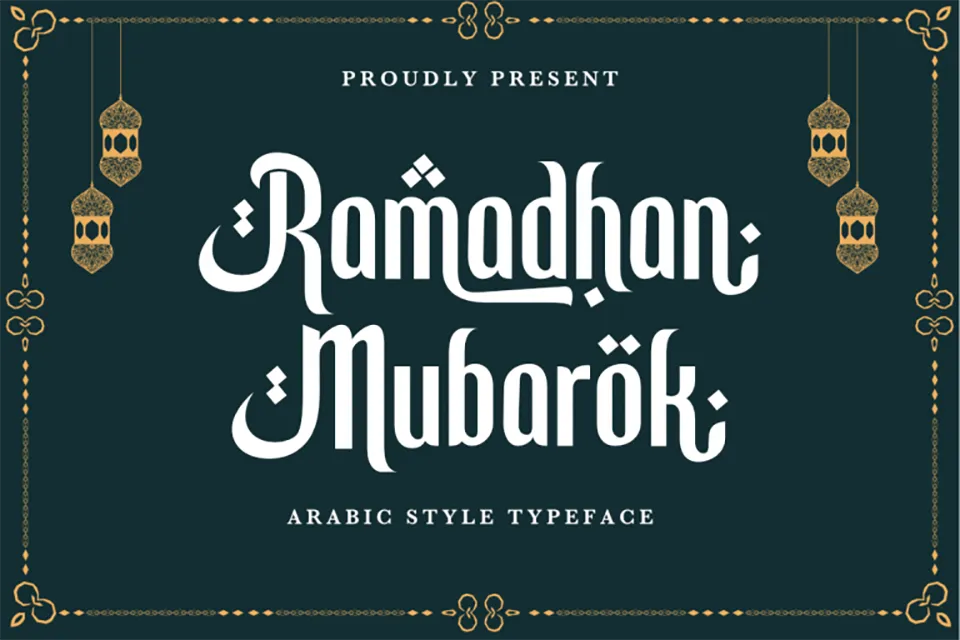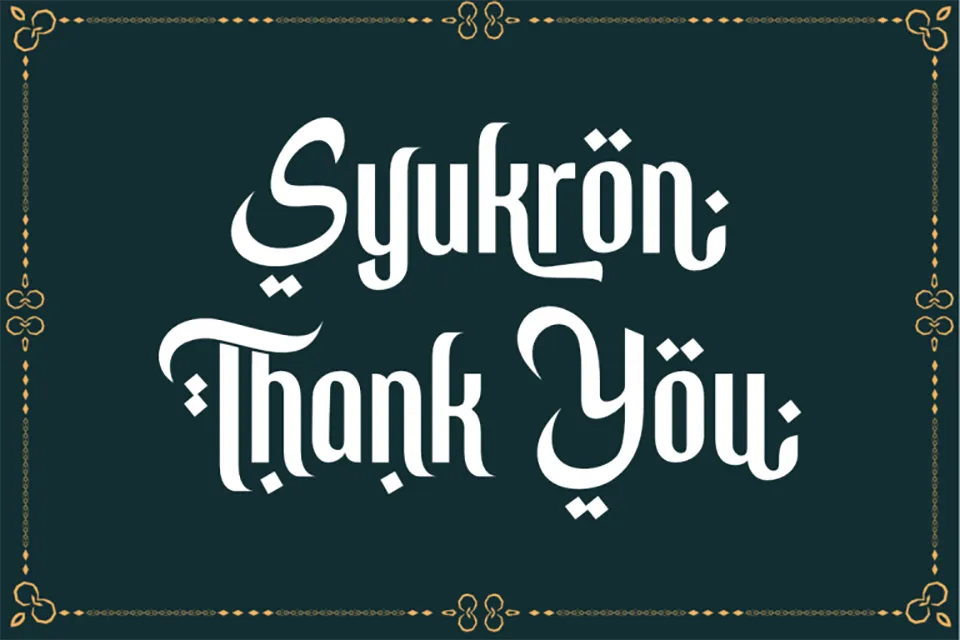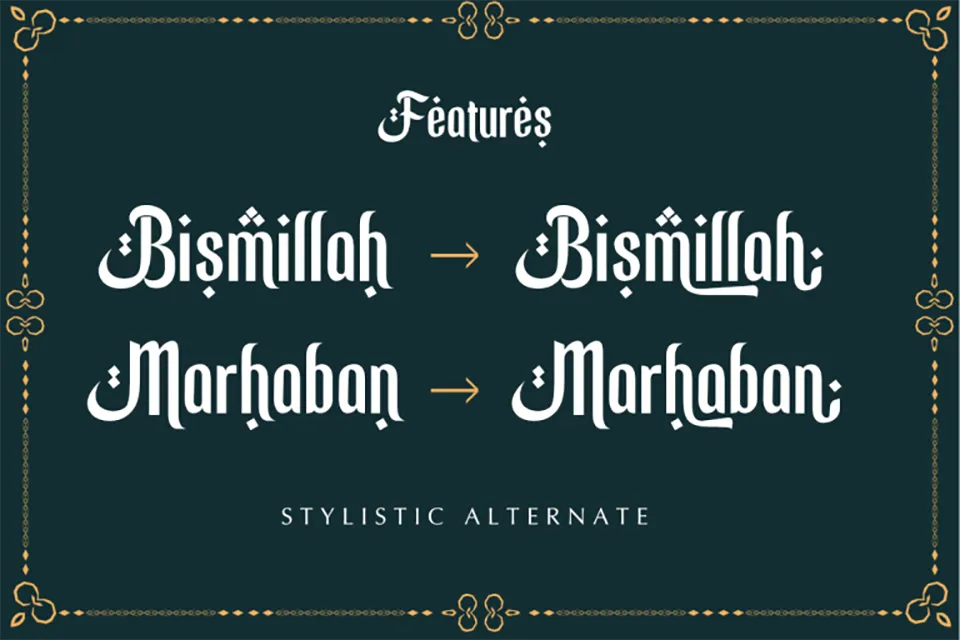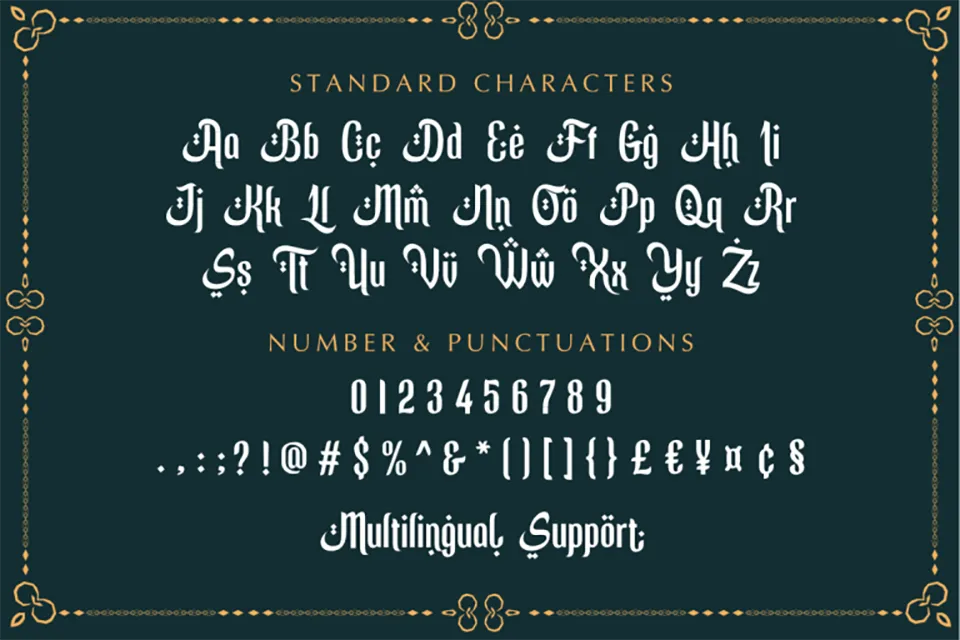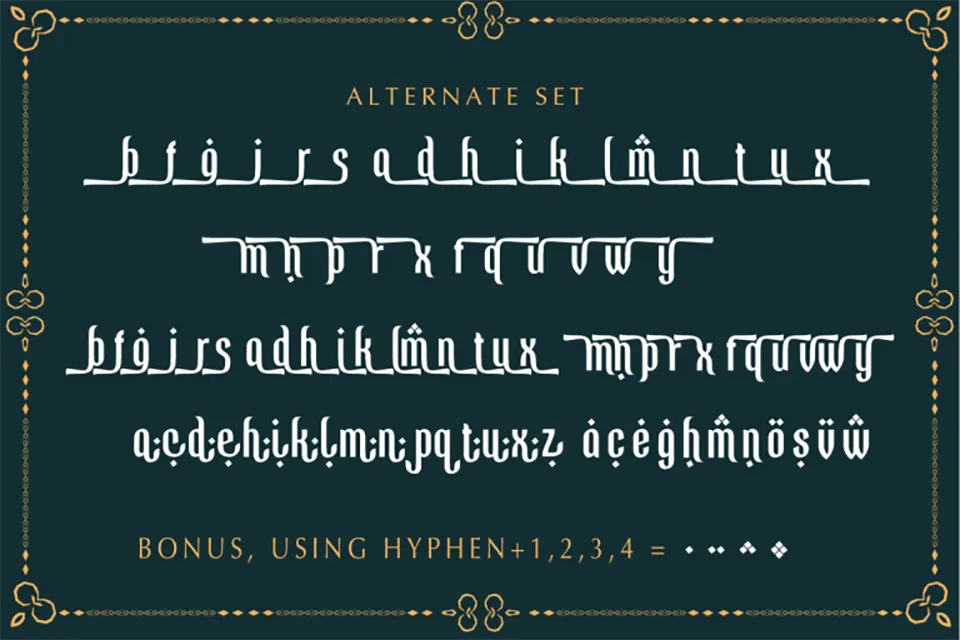
Ramadhan Mubarok Font
Ramadhan Mubarok Display Font is a brand-new font in Islamic style. It features elegant letters designed with a digital flat-pen and gothic typography technique. This font is perfect for products, clothing, t-shirts, food and beverage packaging, book covers, magazines, posters, flyers, and other designs. This demo version is free for personal use only, courtesy of Silverdav Studio.